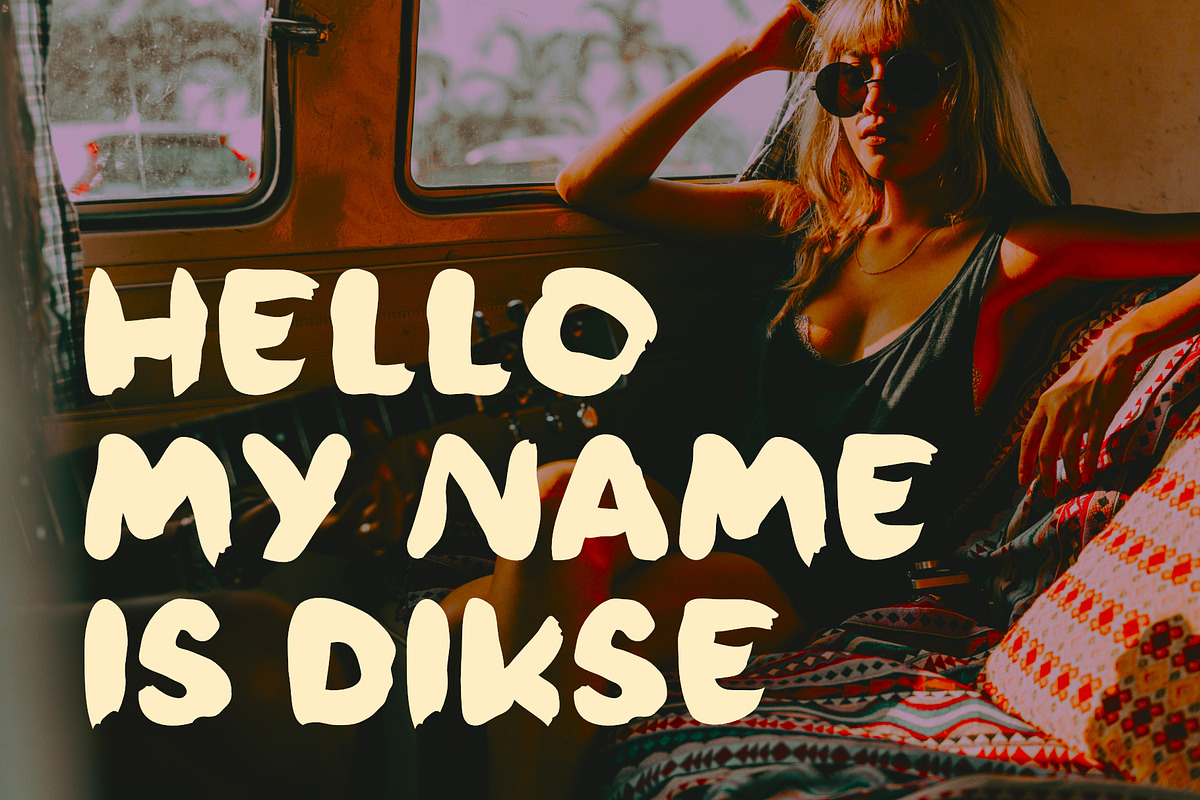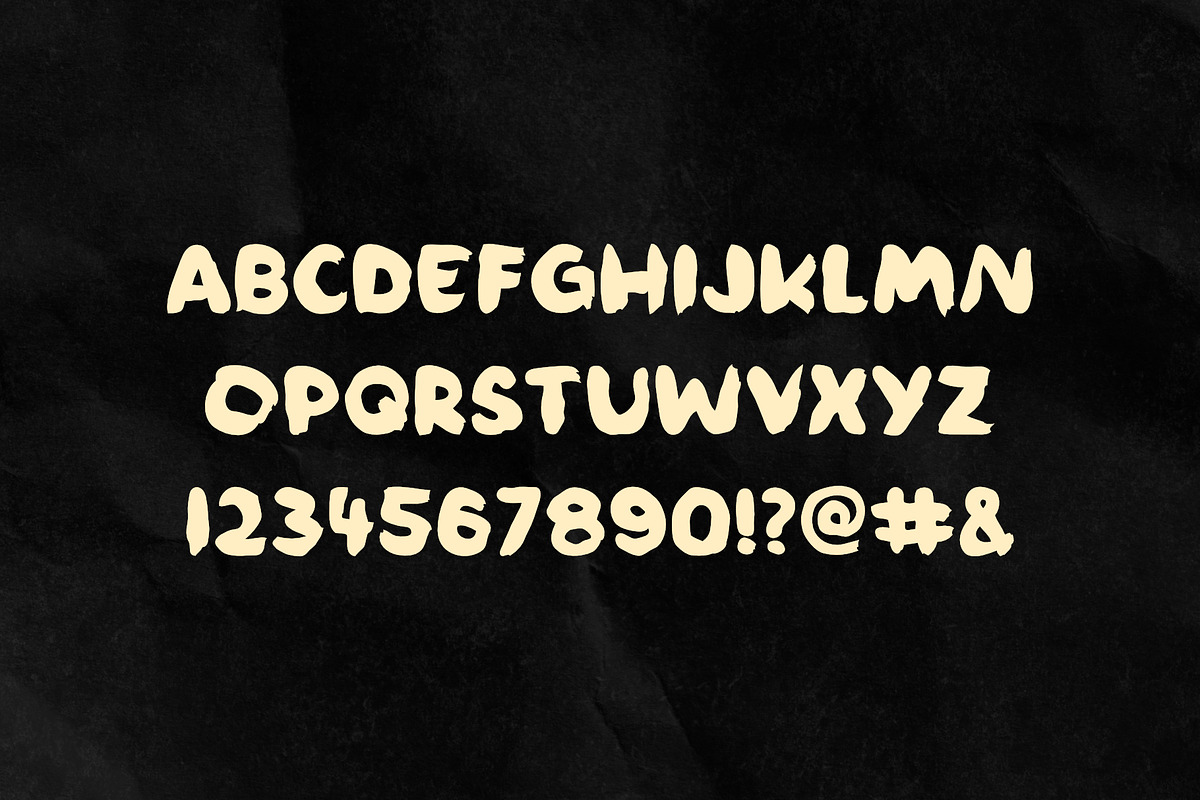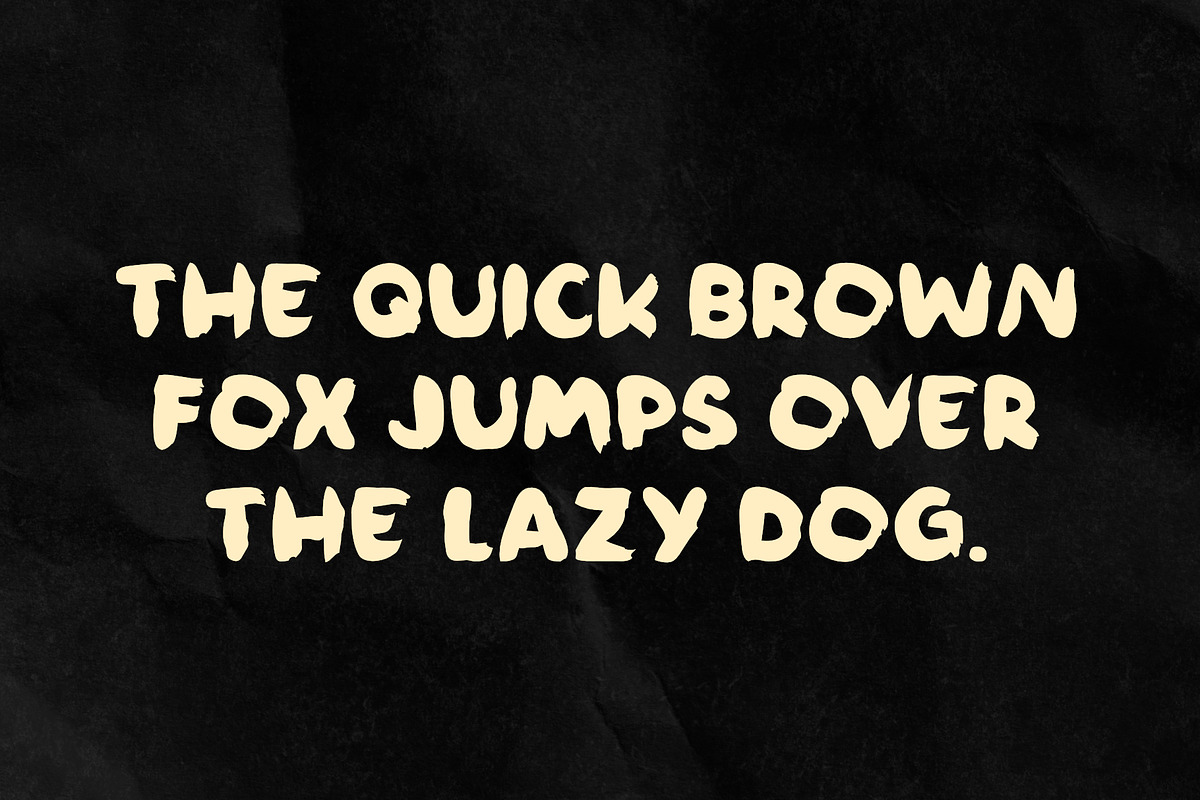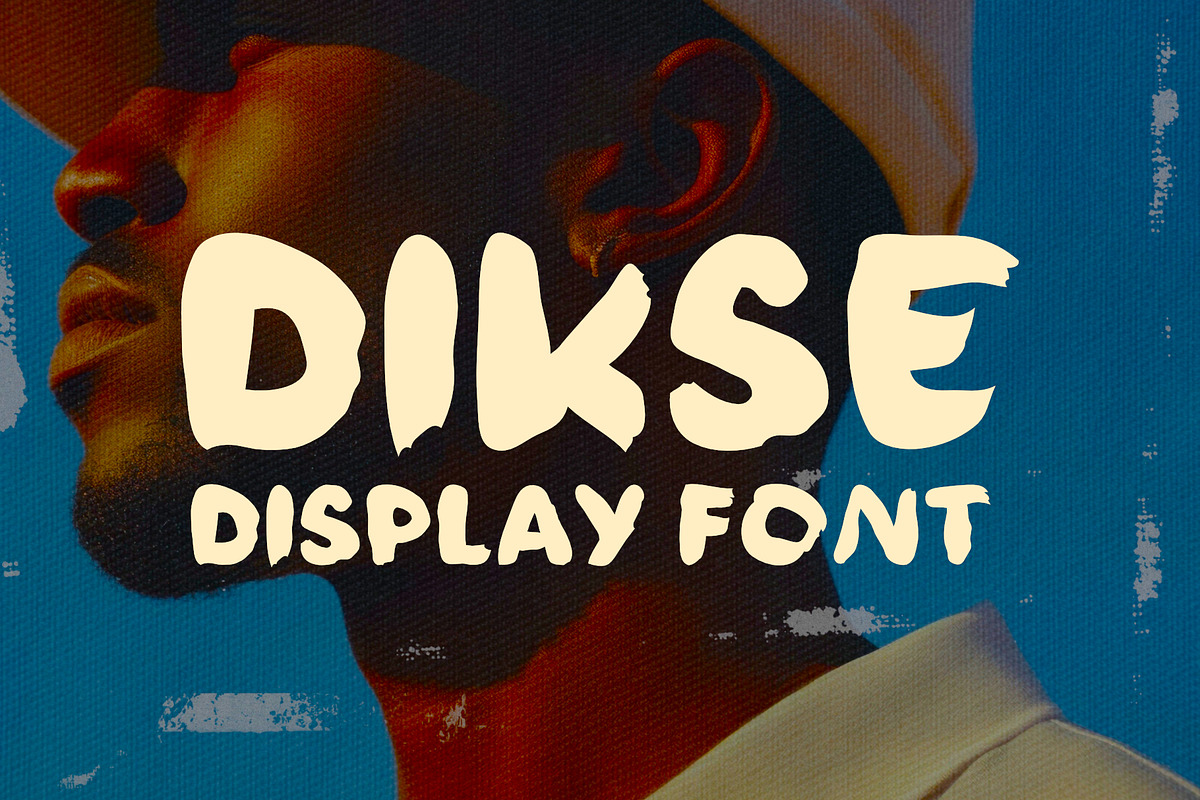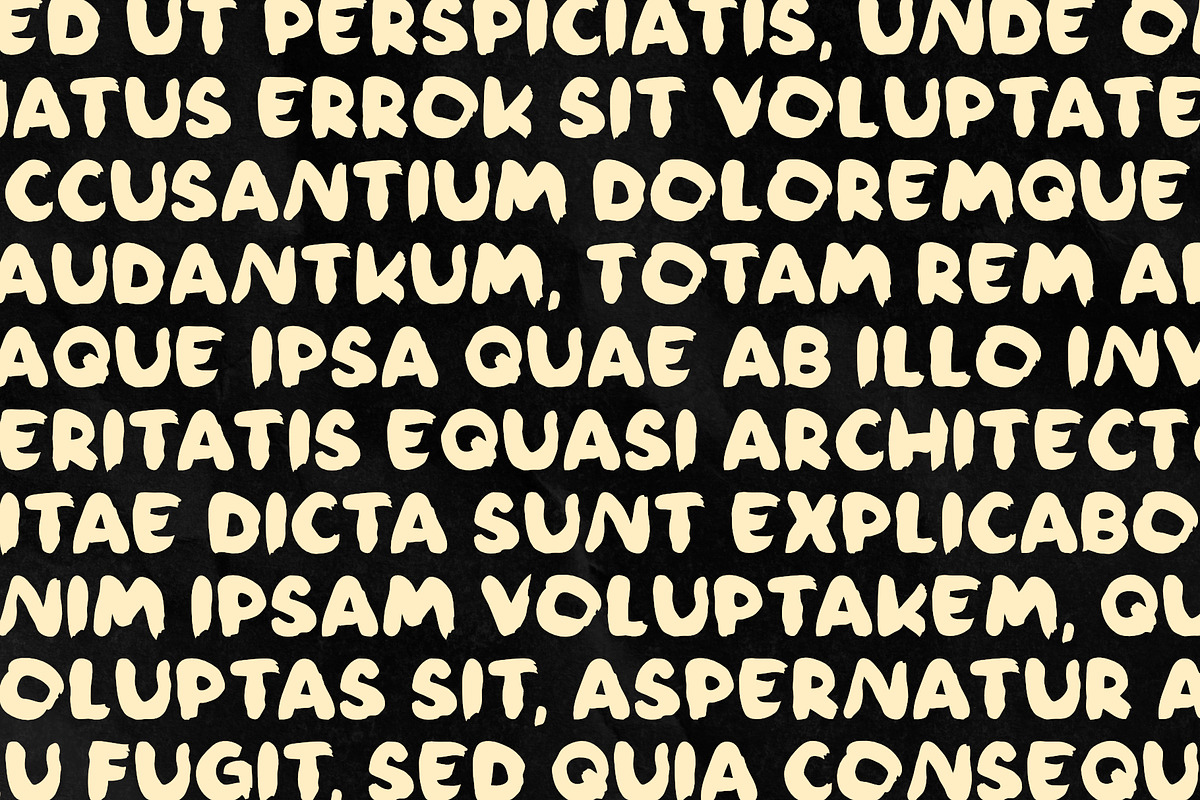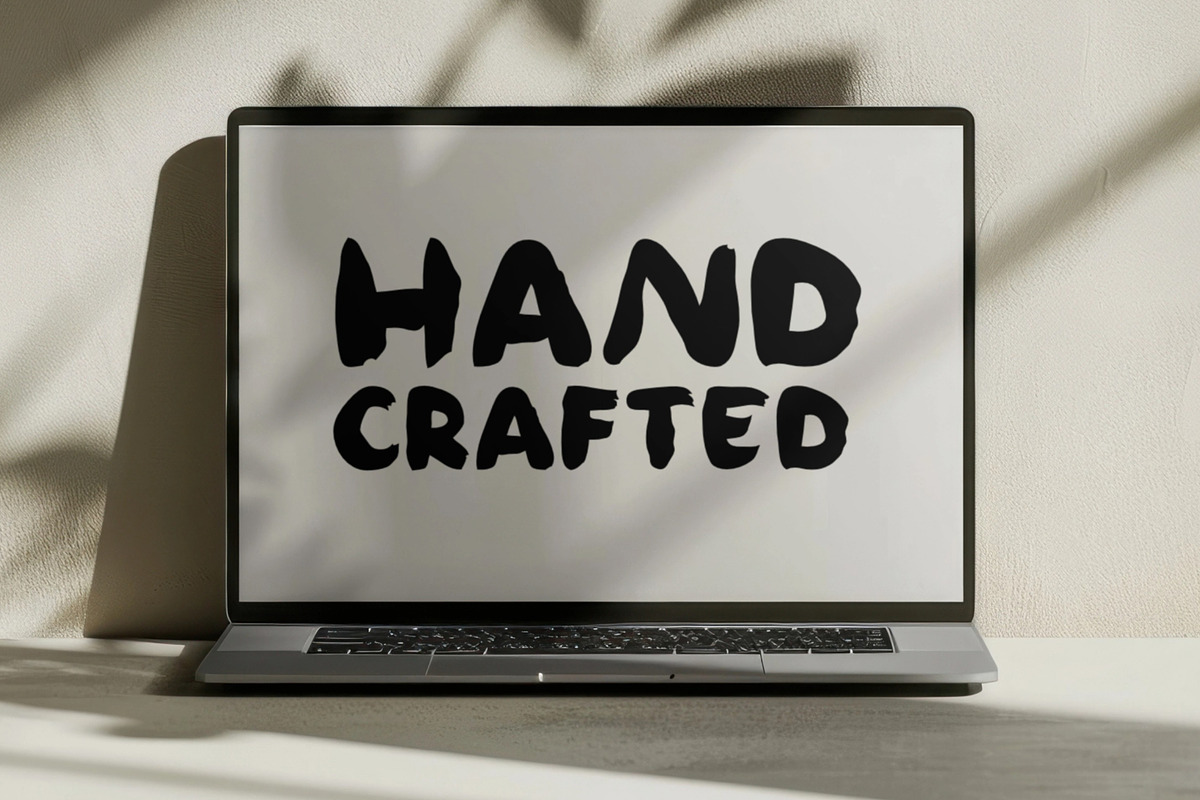
Dikse | Handcraft Font
Dikse Display is a hand-drawn font. Perfect for graphic designs with an intriguing style. The font will work well in poster design, branding, logo design and clothing branding.